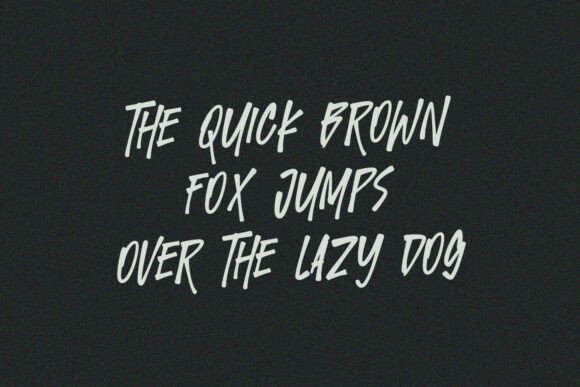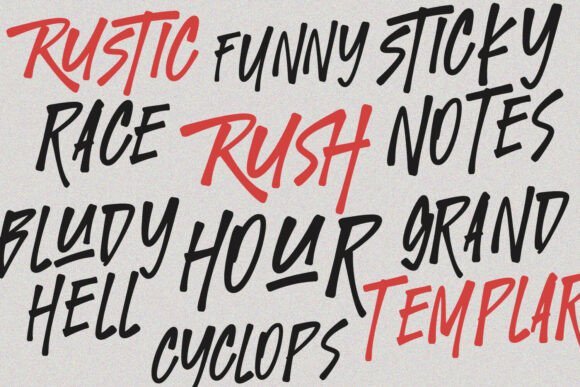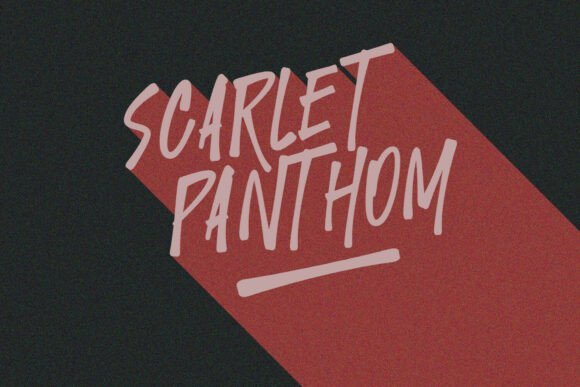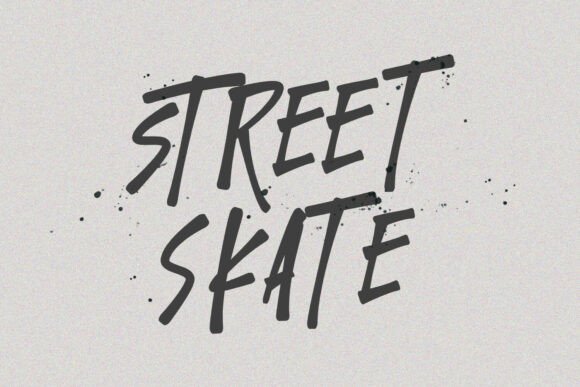
Twicked Panther Font
Maulana Creative
Twicked Panther typeface is a dynamic, hand-painted brush font designed to make an instant and unforgettable statement.